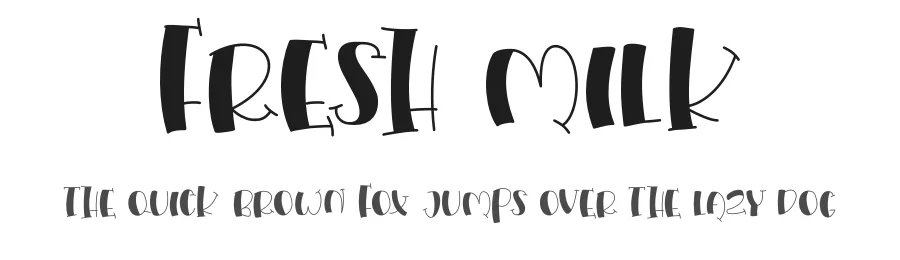
About Invisible Font
Invisible is a decorative font designed by Aaron Underwood. It includes 143 glyphs, a medium weight, TTF (TrueType) format, and 133 languages. Invisible is free to download; check the license details on this page before commercial use. Decorative fonts like Invisible work best for logos, posters, packaging, and standout headlines.
Invisible Font is a decorative font that shines as a display or heading face. Pair it with a clean sans-serif or serif font for body text β the contrast creates a clear hierarchy while the two styles stay balanced and easy to read.
Invisible Font
Invisible Font is a decorative typeface by Aaron Underwood, ideal for logos, invitations, branding, and creative projects.